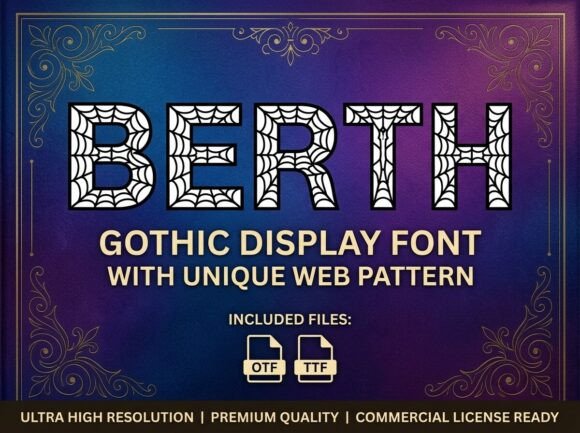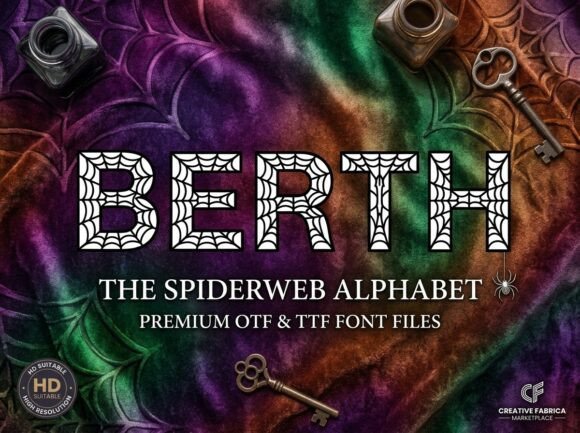
Unleash the Dark Elegance: A Comprehensive Guide to Berth Font
In the realm of typography, few fonts capture the essence of mystery and sophistication as effectively as Berth Font. This hauntingly beautiful display typeface is designed to ensnare your audience with its unique blend of gothic Victorian aesthetics and modern dark-fantasy branding. With its massive, blocky letterforms and intricate internal texture of rhythmic, hand-drawn “spider web” patterns, Berth is the perfect choice for designers and crafters looking to add a touch of darkness and elegance to their projects.
The Inspiration Behind Berth Font
Berth Font is inspired by the darker corners of history and literature, drawing from the ornate and mysterious styles of the Victorian era and the modern dark-fantasy genre. The font’s creator aimed to craft a typeface that would evoke the feeling of mystery and intrigue, perfect for projects that require a sense of sophistication and eeriness. The result is a font that is both beautiful and unsettling, making it ideal for a wide range of applications, from independent escape room identities to occult book covers.
Key Features of Berth Font
So, what makes Berth Font so unique? Here are some of its key features:
- Massive, blocky letterforms: Berth Font features large, imposing letterforms that demand attention. The font’s structural weight is substantial, giving it a heavy, solid feel that is perfect for headlines and titles.
- Intricate internal texture: The font’s internal texture is characterized by rhythmic, hand-drawn “spider web” patterns that add a level of complexity and visual interest. This unique feature bridges the gap between gothic Victorian aesthetics and modern dark-fantasy branding.
- Hand-drawn feel: Despite its bold and imposing appearance, Berth Font has a distinctly hand-drawn feel. The font’s creator has carefully crafted each letterform to have a sense of human imperfection, making it feel more organic and authentic.
Use Cases for Berth Font
Berth Font is a versatile typeface that can be used in a wide range of applications, including:
- Independent escape room identities: The font’s mysterious and intriguing personality makes it perfect for escape room branding, setting the tone for a thrilling and immersive experience.
- Boutique Halloween event promotions: Berth Font is ideal for Halloween-themed events, adding a touch of spookiness and sophistication to promotional materials.
- Occult book covers: The font’s dark and mystical vibe makes it a natural fit for book covers in the occult and dark fantasy genres.
- High-impact social media headers: Berth Font’s bold and eye-catching design makes it perfect for social media headers, helping to grab the attention of your audience and set your brand apart.
Tips for Using Berth Font Effectively
To get the most out of Berth Font, here are some tips for using it effectively:
- Use it sparingly: Due to its bold and imposing nature, Berth Font is best used sparingly. Use it for headlines and titles, and pair it with a more neutral font for body text.
- Experiment with colors: Berth Font looks great in a range of colors, from deep blacks and dark grays to rich, bold colors. Experiment with different color schemes to find the one that works best for your project.
- Pair it with contrasting fonts: To create visual interest, pair Berth Font with a contrasting font that has a more delicate or elegant feel. This will help to create a sense of balance and harmony in your design.
Berth Font is a unique and captivating typeface that is sure to ensnare your audience with its hauntingly beautiful design. With its massive, blocky letterforms and intricate internal texture of rhythmic, hand-drawn “spider web” patterns, Berth is the perfect choice for designers and crafters looking to add a touch of darkness and elegance to their projects. Whether you’re working on an independent escape room identity, a boutique Halloween event promotion, or an occult book cover, Berth Font is the premier choice for creating a lasting impression.